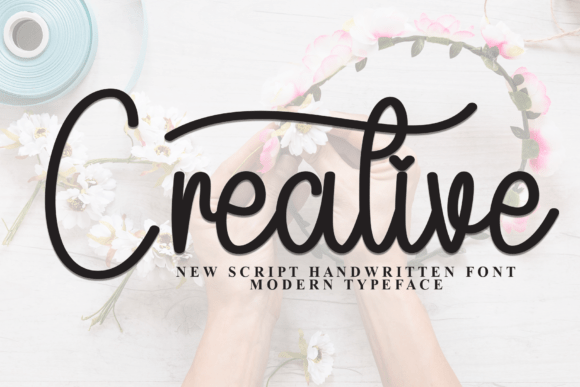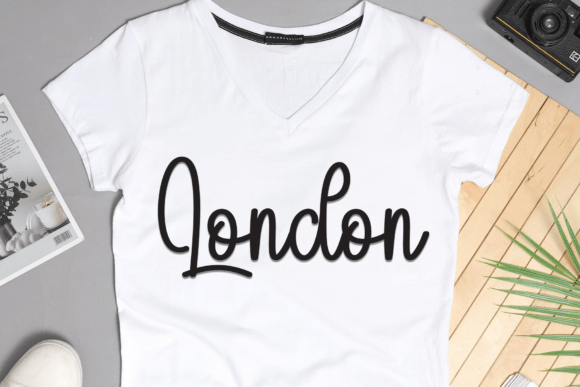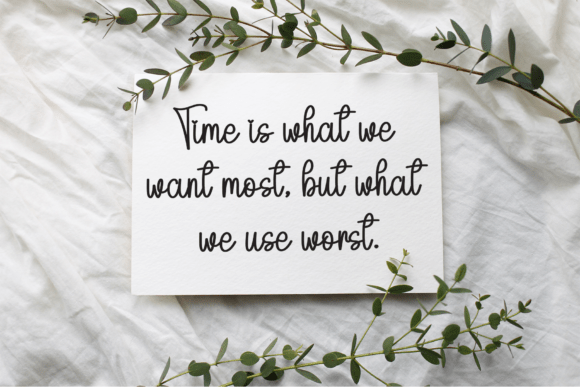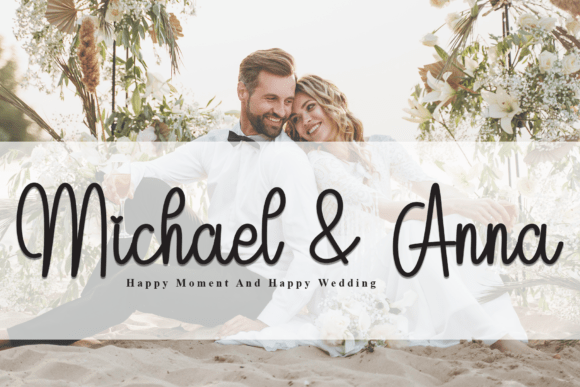
Creative Font
About the Creative Font
Meet Creative Font, a stunning font that brings a touch of elegance and professionalism to any design. Creative is a stylish handwritten script font that blends modern elegance with a playful touch. Its fluid strokes and charming curves bring a personal feel to any design. Ideal for logos, packaging, and invitations, this typeface adds warmth, sophistication, and creativity to every project.
Creative Font excels in applications requiring a touch of personality and sophistication, such as logos, short headlines, and packaging design where its elegant curves and fluid strokes shine. It’s also well-suited for wedding invitations or other projects needing a touch of handwritten charm. However, its script nature makes it less suitable for body text or UI elements where readability is paramount; long blocks of Creative Font would be difficult to read.
For optimal visual balance, pair Creative Font with a clean sans-serif like Lato or Montserrat for a modern contrast, or a classic serif such as Garamond or Playfair Display for a more traditional feel. A geometric sans-serif like Futura could also create a striking juxtaposition, depending on the desired effect.
The font’s overall personality is best described as playful yet elegant, offering a sophisticated yet approachable feel. Brands focusing on handcrafted goods, boutique businesses, or events with a romantic or celebratory atmosphere would find Creative Font particularly effective.
Creative Font Usage Examples
Creative Font Example